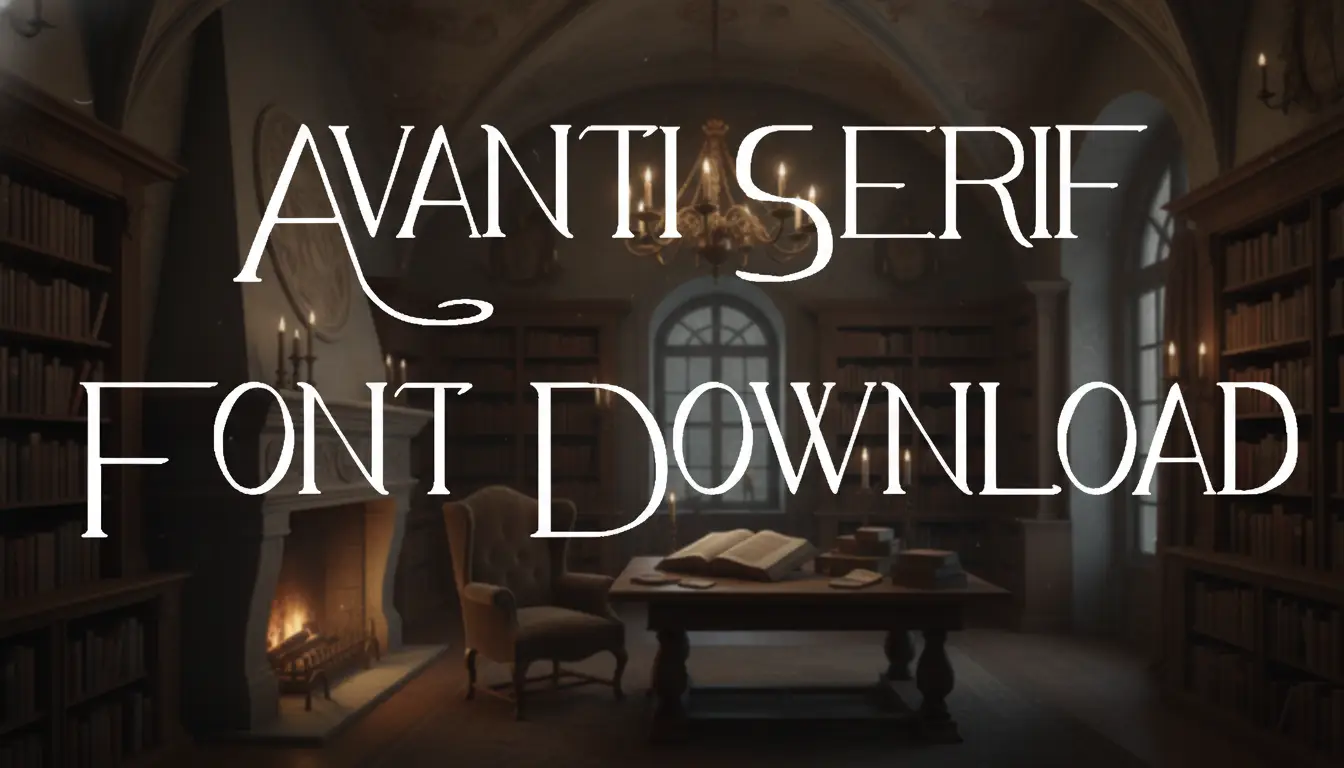
Avanti Font
Avanti
Avanti is a fancy font. It's a decorative display font with plenty of personality, made to grab attention. It's a free download, and you can try it with your own text in the preview above first.
What You Can Type With Avanti
With complete upper and lowercase letters and all ten digits, Avanti is ready for real wording, not just a single headline. Common punctuation such as &, !, ? and @ is included as well. It also has the accented letters you need for Spanish, French, German, Portuguese and Italian.
Where Avanti Works Best
Think of Avanti for posters, logos and eye-catching headlines. Use it for one standout word or headline and let simpler fonts handle the rest.
Does Avanti support accented letters?
Yes. Avanti includes the accented letters needed for Spanish, French, German, Portuguese and Italian, so it works for more than just English.